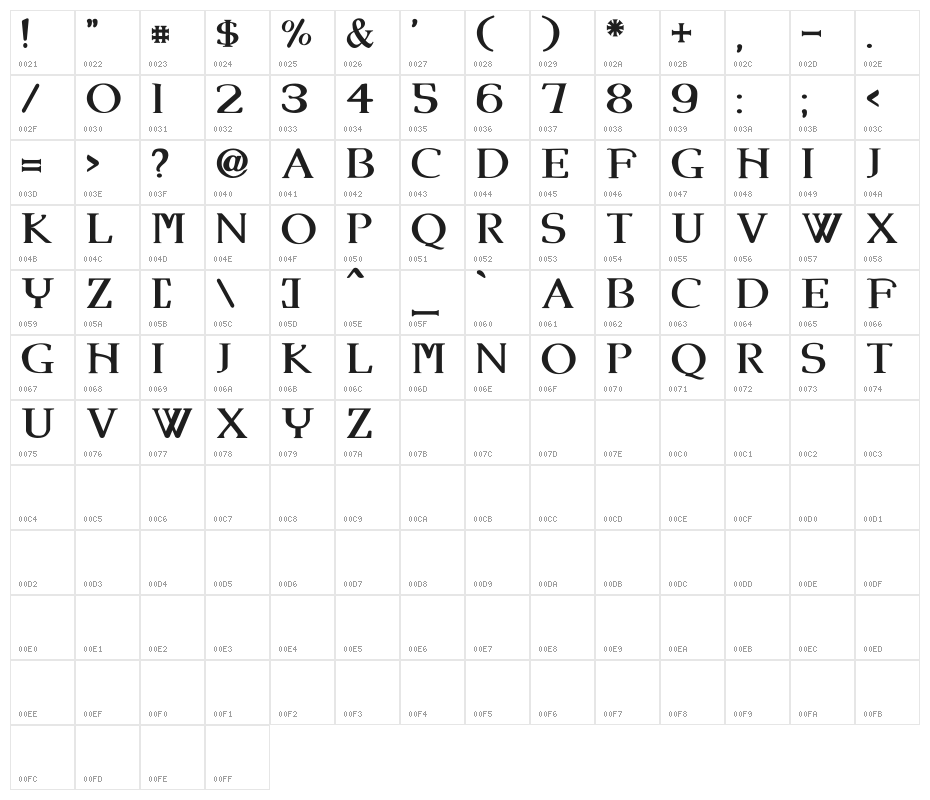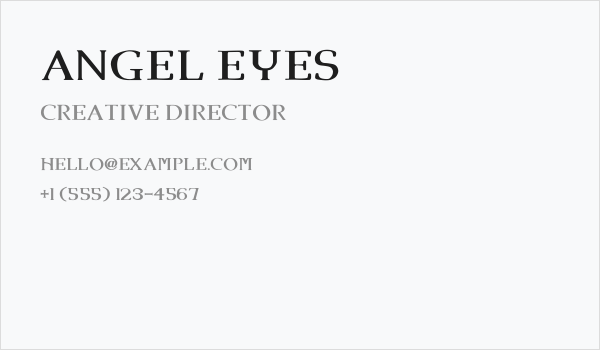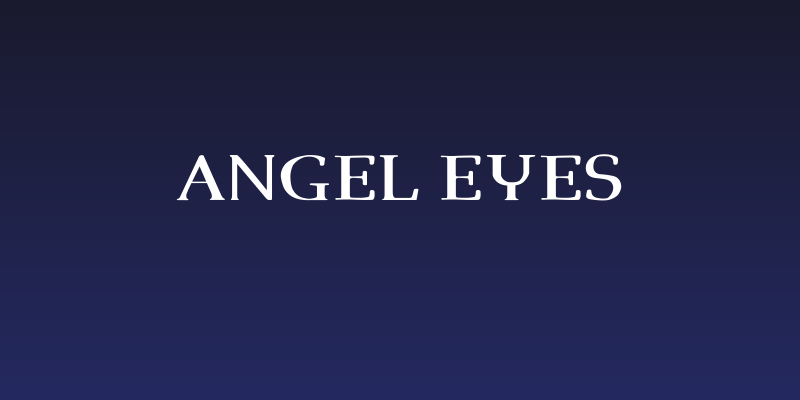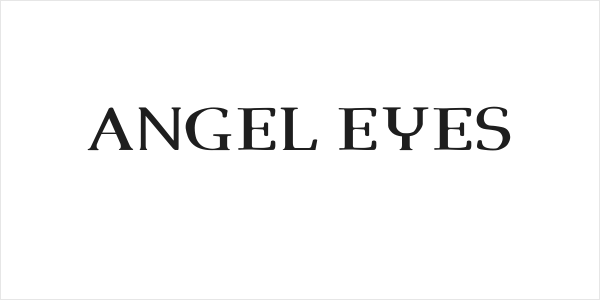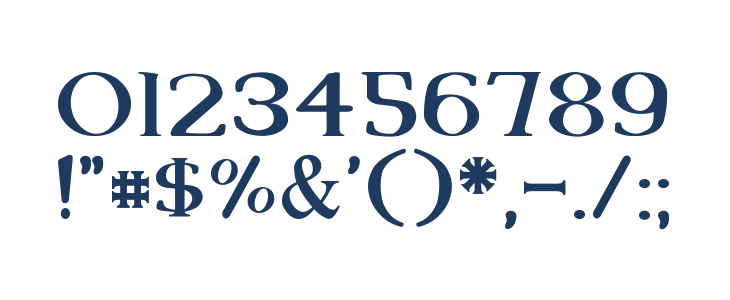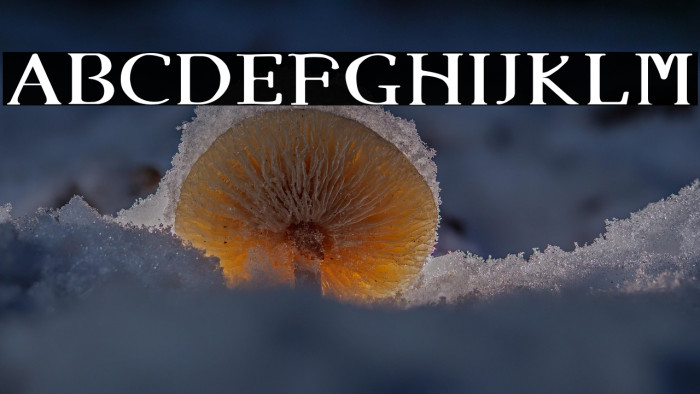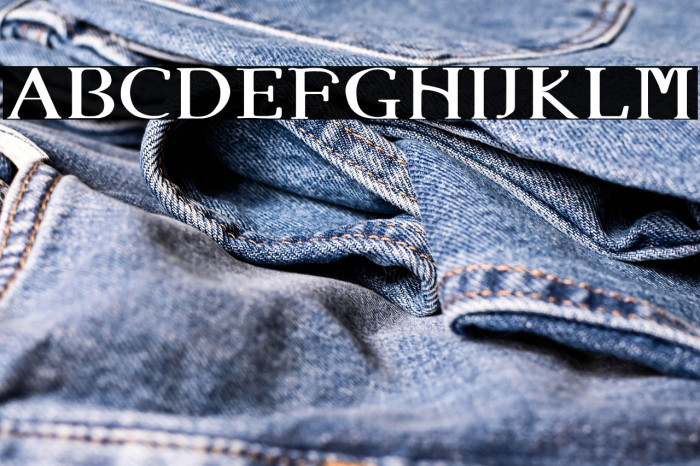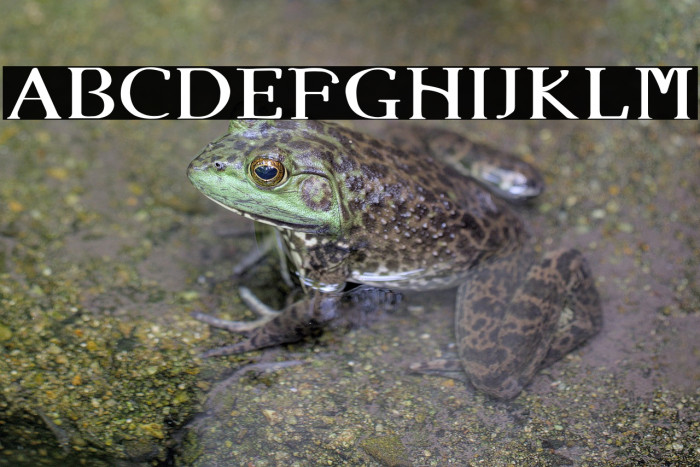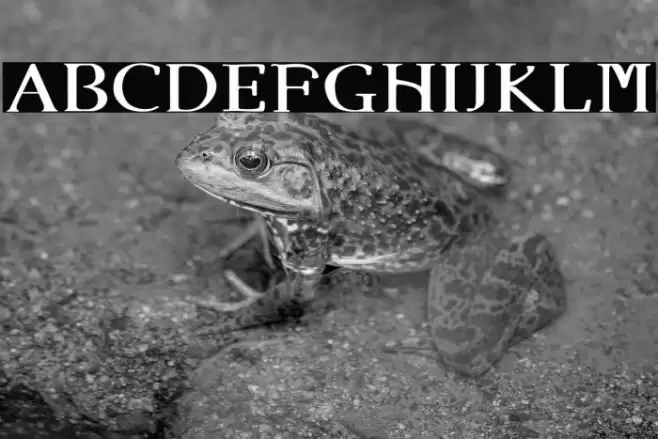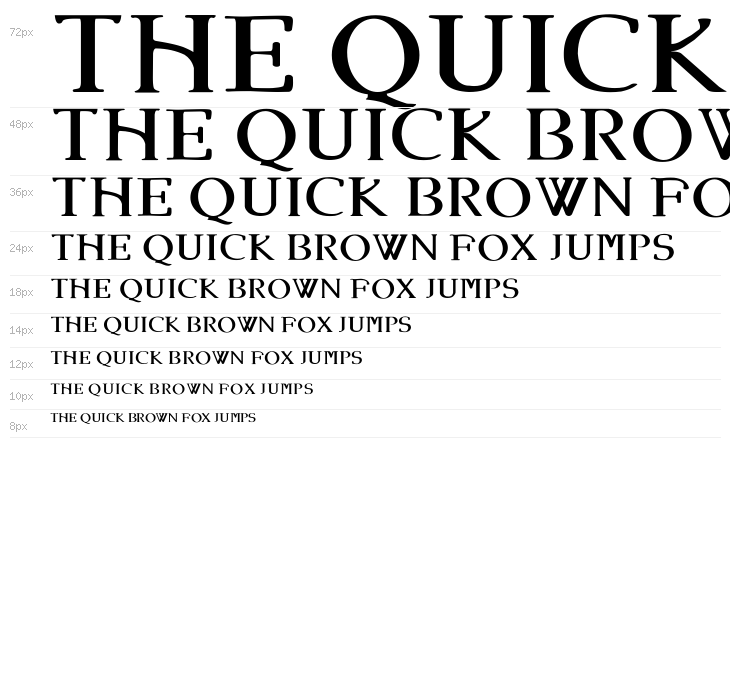
Angel Eyes Font
Angel Eyes Description
This font features a classic serif style with a modern twist, characterized by its elegant and slightly curved serifs. The uppercase letters are bold and commanding, while the lowercase letters maintain a consistent flow with subtle variations in stroke width. The numerals are distinct and easily readable, making them suitable for both print and digital media. Special characters are well-defined, adding versatility to the font's usage. The overall design is balanced, with a medium contrast between thick and thin strokes, providing a sophisticated yet approachable appearance.
| Proposed Projects | Ideal for book covers, editorial design, branding, and formal invitations. |